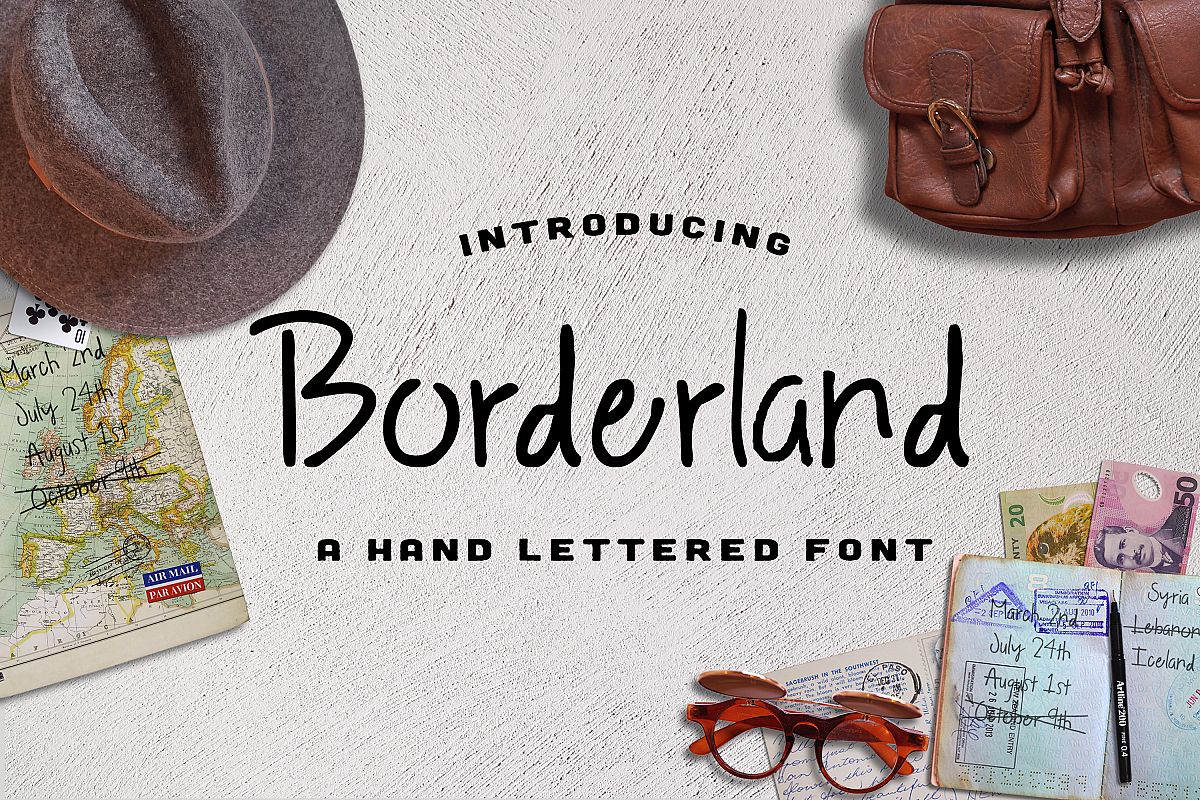
Borderland Font
ABOUT BORDERLAND::::::::::::::::::::::::::::::::::::::::::::::::::::::::
Borderland is an adventurous, hand-lettered sans serif font inspired by the pages in your Travel Notes journal. It's full of those hand-written imperfections that make your designs come to life! This sans serif is perfect for logos, typography, prints, and accent pieces on your restaurant menus.